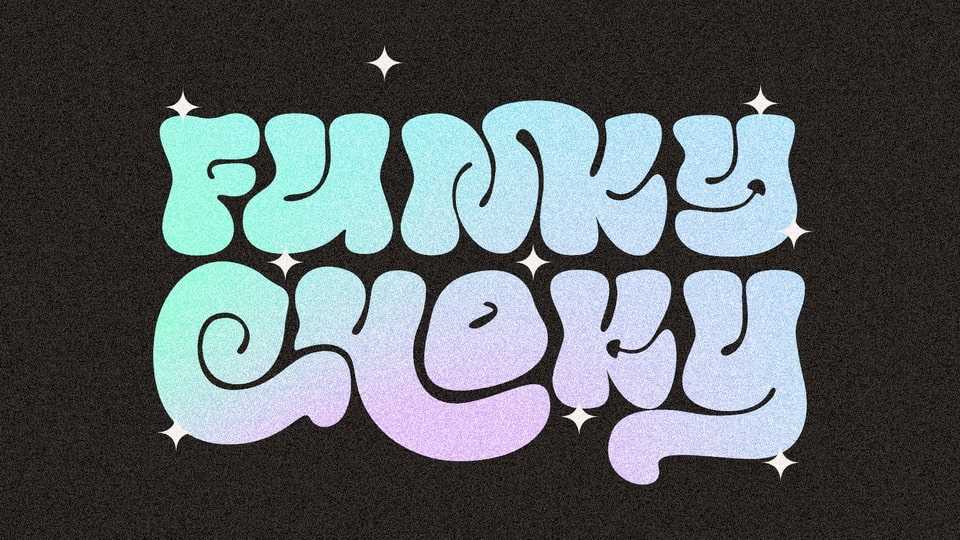
Download Funky Choky font, a captivating typeface that combines the essence of bubble dynamics with a modern and funky style. Its unique design exudes energy and playfulness, making Funky Choky perfect choice for projects that require a fresh and vibrant look.